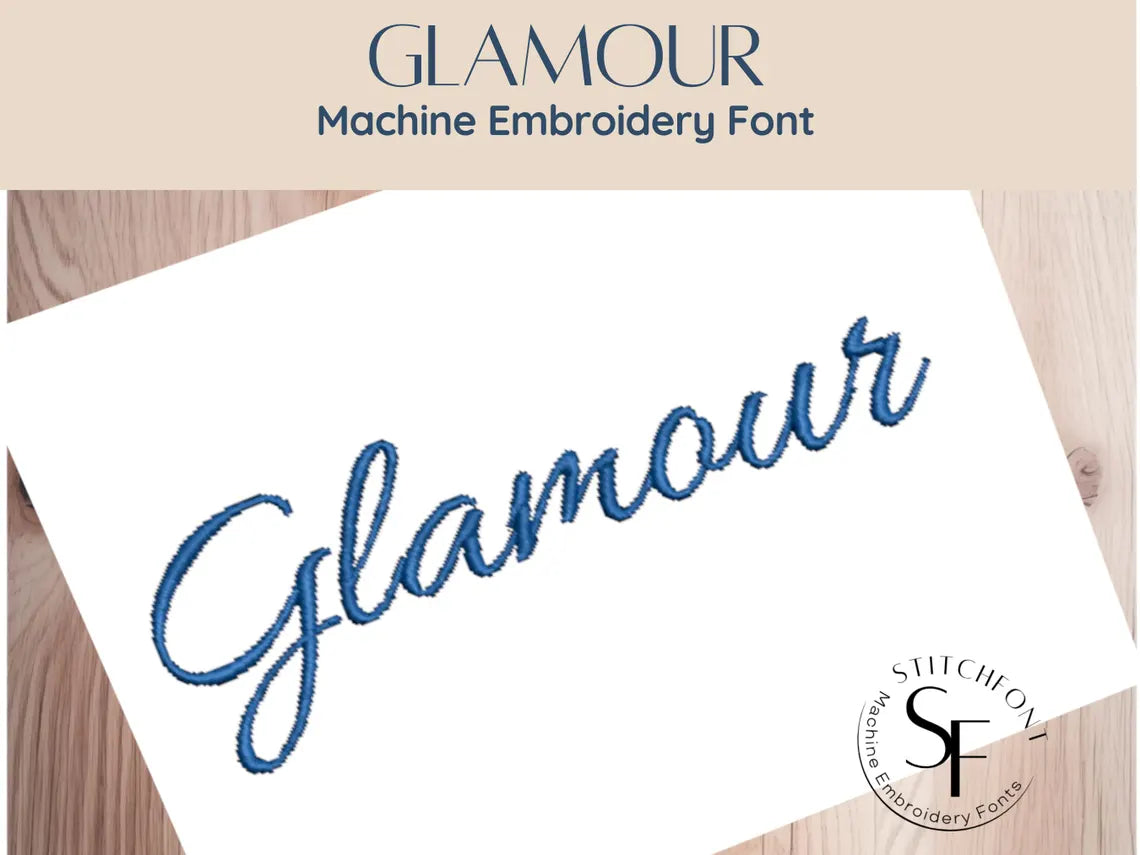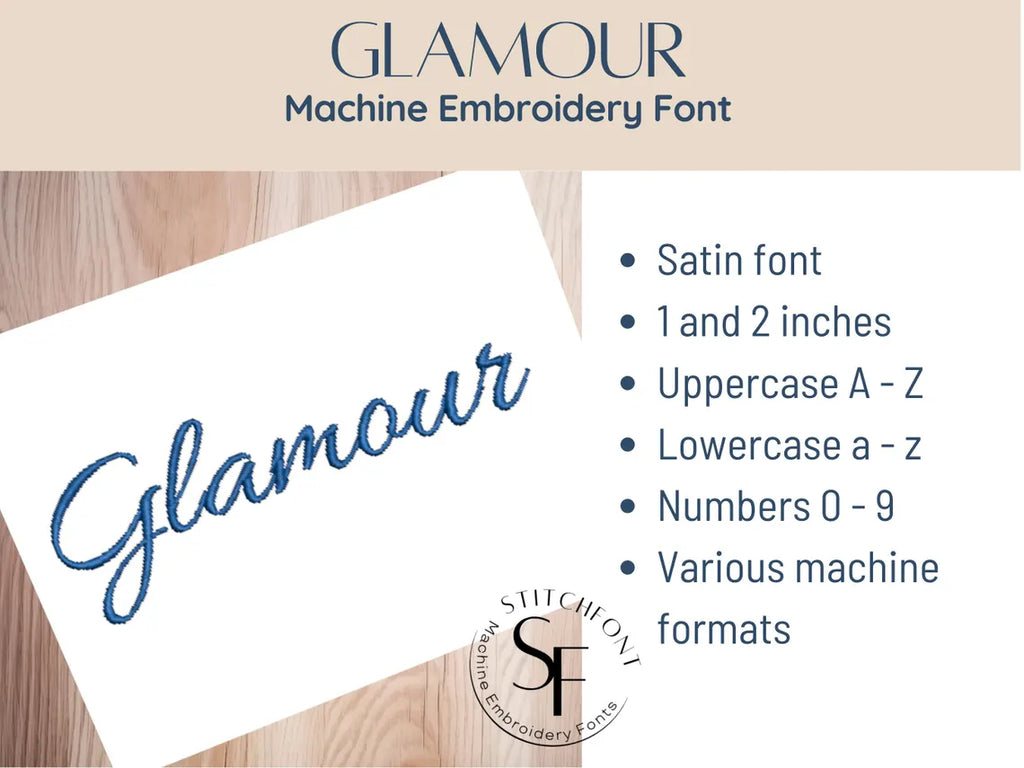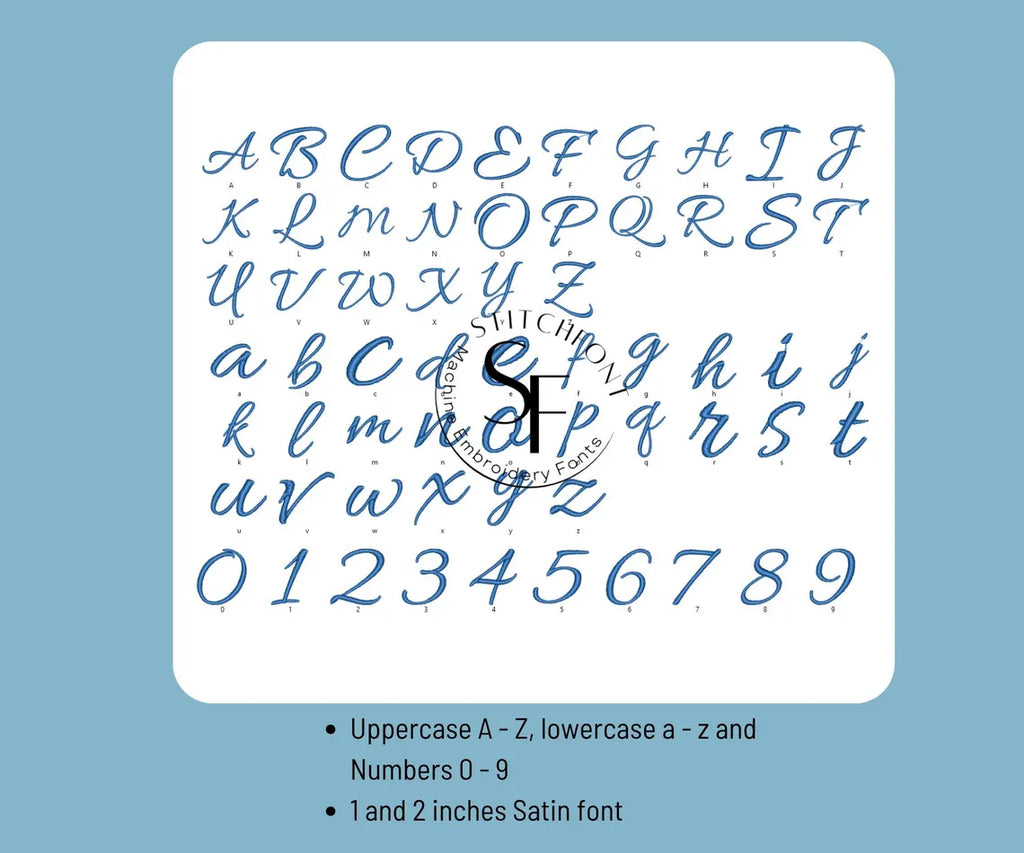
Machine Embroidery Satin Stitch Font - Glamour - 2 sizes - 8 formats
๐ซ Glamour Satin Embroidery Font โ Classic Elegance in Every Stitch ๐ซ
Elevate your embroidery projects with the Glamour Font โ a graceful satin stitch script that exudes timeless beauty and charm. Perfect for high-end personalization, this font brings a sleek, handwritten look to names, quotes, monograms, and more.
* Satin Stitch โ smooth, high-quality results
* Uppercase AโZ
* Lowercase aโz
* Numbers 0โ9
โจ Perfect For:
* Luxury gifts and wedding keepsakes
* Towels, pillowcases, napkins & clothing
* Boutique branding and product personalization
๐ Why Youโll Love It:
* Stylish yet easy to read
* Digitized for clean and professional stitching